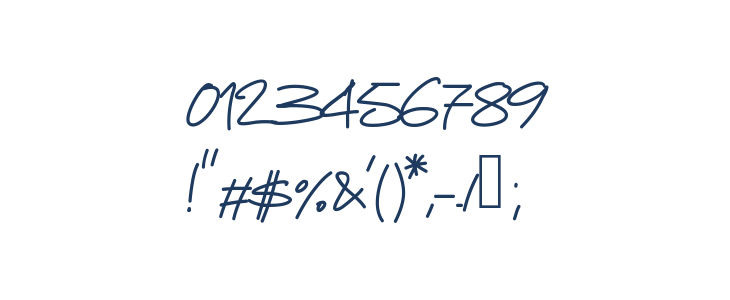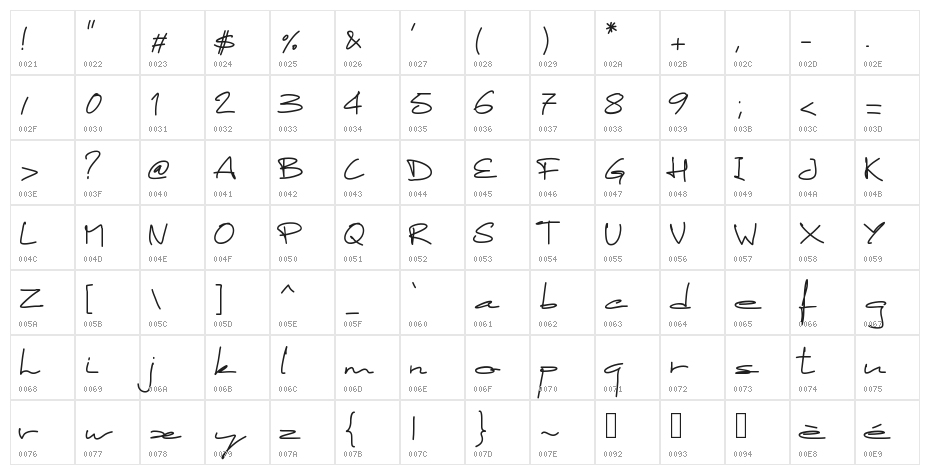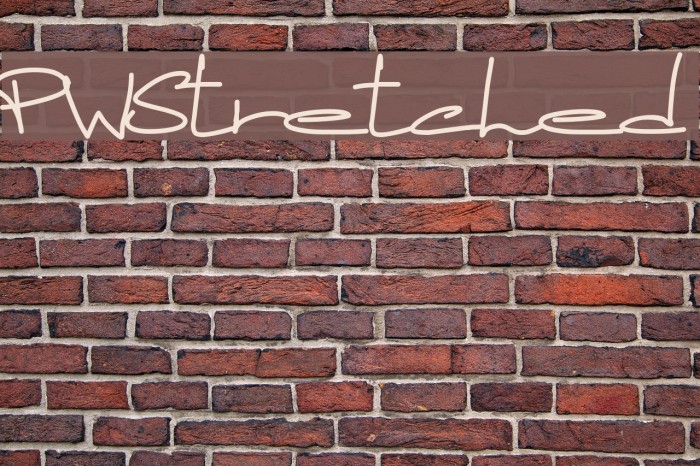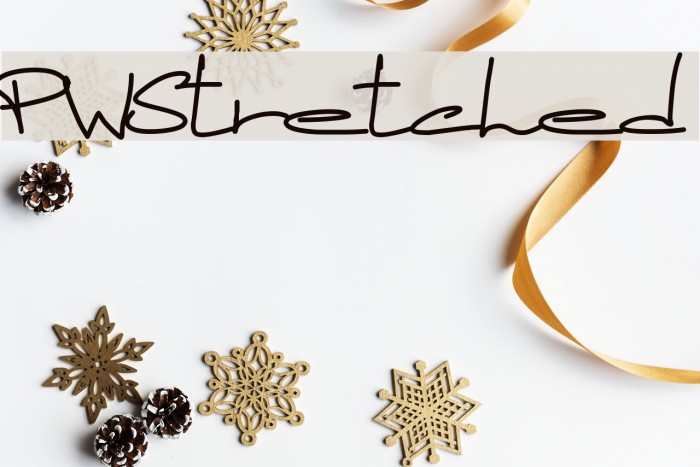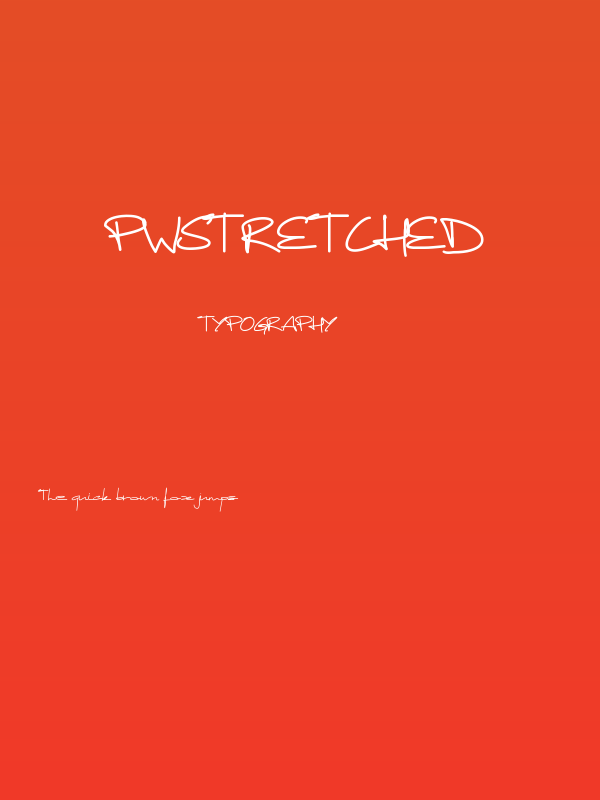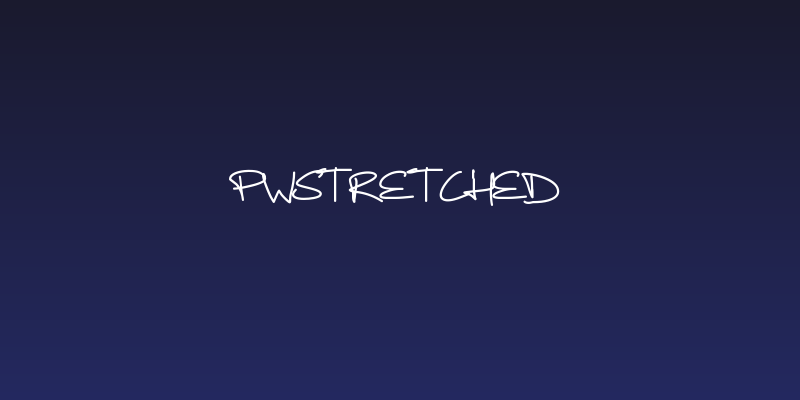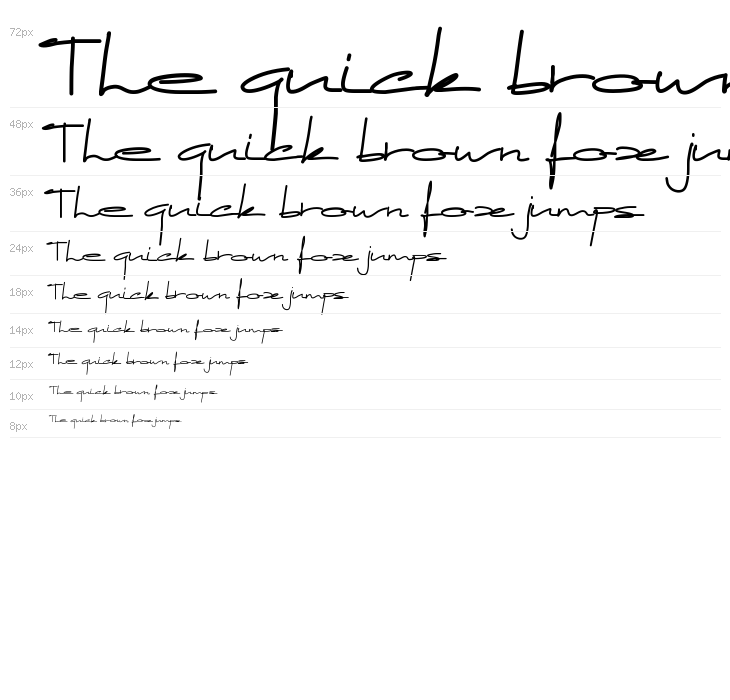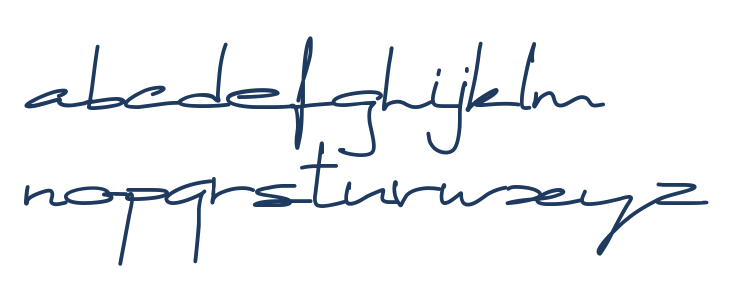
PWStretched Font
PWStretched Description
This font exhibits a dynamic and energetic handwritten style, characterized by its elongated and slightly irregular letterforms. The strokes are fluid and expressive, giving a sense of movement and spontaneity. The uppercase and lowercase letters maintain a consistent style, with a playful yet sophisticated appearance. The numbers and special characters follow the same aesthetic, ensuring a cohesive look across all elements. This font's unique personality makes it stand out, offering a modern twist on traditional handwriting.
| Width | Expanded |
| Use Case | Logos, Headlines, Artistic projects |
| Proposed Projects | Ideal for creative projects such as invitations, greeting cards, personal branding, and artistic posters. |